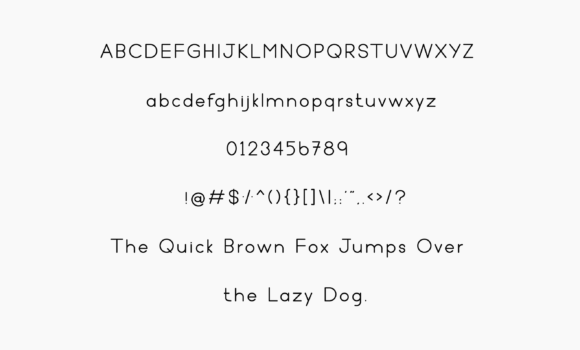
As designers, we’ve all been there – staring at a blank canvas, searching for the perfect font to bring our vision to life. It’s that moment when everything clicks, and the right font makes all the difference. That’s where Averon Pro Font comes in – a charming sans-serif font that effortlessly elevates your design game.
| 📌 Product Name | Averon Pro Font |
| 👤 Author | Uzairr |
Averon Pro Font is more than just a pretty face; it’s a thoughtful combination of clean lines, modern aesthetics, and a touch of sophistication. Its versatility makes it an ideal choice for designers looking to add a professional touch to their work. Whether you’re crafting a logo, designing a website, or creating a marketing campaign, Averon Pro Font is the perfect companion to help you achieve your creative goals.
Averon Pro Font Key Features
- Font Family: Averon Pro is a sans-serif font family with 6 weights, ranging from Light to Black.
- Character Count: Averon Pro contains over 1,100 glyphs, including international characters, ligatures, and symbols.
- Unique Characteristics: Averon Pro features a clean, modern design with subtle rounded edges, giving it a friendly and approachable feel.
- Font Metrics: Averon Pro has a x-height of 87% and an average stem width of 4.5 units, making it well-suited for body text and headings.
Averon Pro Font Review
I’ve been working with the Averon Pro font for a while now, and I have to say it’s been a solid addition to my design toolkit. ✨ One of the things that really stands out is its excellent legibility, making it perfect for body text and long-form content. The font also has a clean, modern aesthetic that’s easy to customize and pair with other fonts.
Another great feature of Averon Pro is its wide range of weights and styles, which gives designers a lot of flexibility when it comes to creating different typography effects. The font also supports a wide range of languages, making it a great choice for international projects.
While Averon Pro is an excellent font, there are a few limitations to be aware of. ⚠️ One of the main issues is its lack of expressiveness – the font can feel a bit generic and doesn’t have the same level of personality as some other fonts. Additionally, the font’s italic styles can feel a bit awkward and may not be suitable for all projects.
Overall, I think Averon Pro is a great choice for designers who need a clean, modern font that’s easy to work with. While it may not have the same level of expressiveness as some other fonts, its excellent legibility and wide range of weights and styles make it a solid choice for a variety of projects.
- Excellent legibility
- Wide range of weights and styles
- Supports a wide range of languages
- Modern aesthetic
- Clean and customizable
To get the most out of Averon Pro, use it in combination with other design elements such as bold fonts, italics, and color schemes.
Use Averon Pro in conjunction with other fonts to create a cohesive design.
Common Use Cases for Averon Pro
Averon Pro is ideal for use in:
Business cards and brochures
Presentations and reports
Marketing materials and websites
Yes, Averon Pro is optimized for digital use and is suitable for e-books, mobile apps, and other digital products. It is designed to render clearly on various screens and devices, ensuring a consistent and high-quality visual experience.
What is the recommended font size range for Averon Pro?
The recommended font size range for Averon Pro is between 10pt and 24pt, depending on the specific design requirements and the desired level of legibility. However, it is essential to test the font at various sizes to ensure optimal readability and visual appeal.